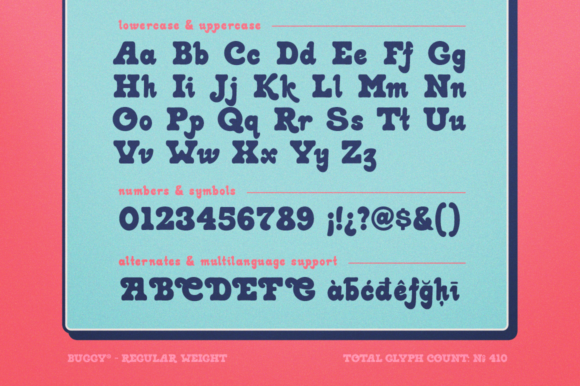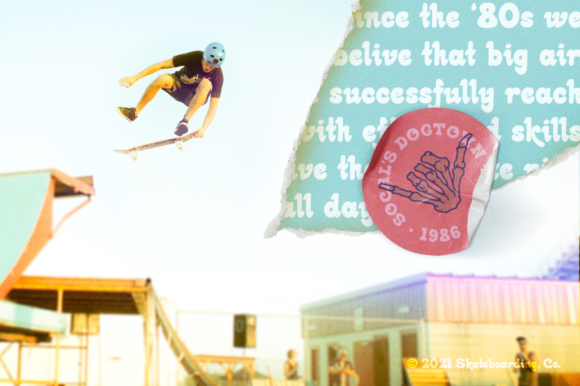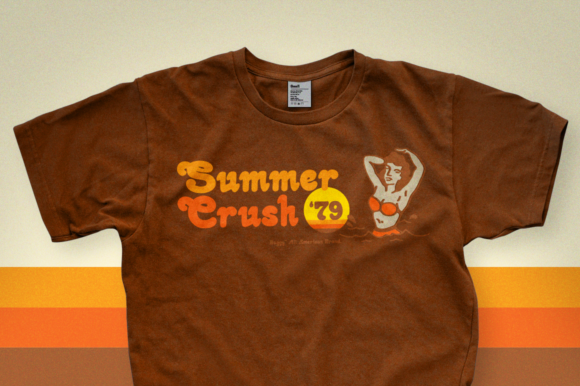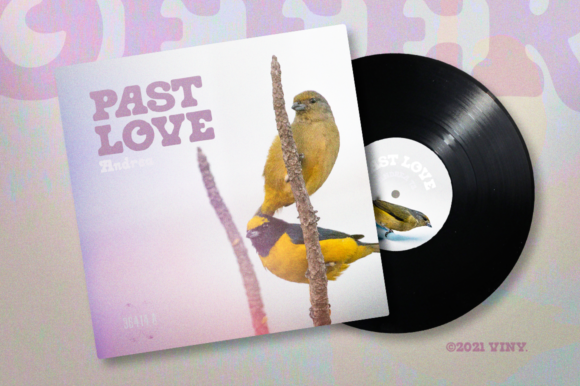
Introducing Buggy Font: The Bold and Retro-Styled Display Font You Need
In the world of design, fonts play a crucial role in conveying the message and aesthetic of a project. Whether you’re a digital designer, crafter, or presenter, finding the right font can make all the difference. That’s where Buggy Font comes in – a bold and retro-styled display font that’s perfect for adding a touch of trendiness to your work.
What is Buggy Font?
Buggy Font is a carefully crafted display font that’s designed to make a statement. With its bold and retro-inspired style, it’s perfect for projects that require a bit of flair. The font features a unique blend of classic and modern elements, making it versatile and suitable for a wide range of applications.
Key Features of Buggy Font
- Bold and Retro-Styled: Buggy Font boasts a bold and retro-styled design that’s sure to grab attention.
- Perfect for Display Purposes: With its large and clear letterforms, Buggy Font is ideal for display purposes, such as headings, titles, and captions.
- Trendiness: The font features a perfect amount of trendiness, making it suitable for projects that require a modern and stylish touch.
- Versatile: Buggy Font can be used for a wide range of applications, including crafting, digital designing, presentations, and greeting cards making.
Use Cases for Buggy Font
Buggy Font is perfect for designers and crafters who want to add a touch of personality to their work. Here are some use cases where Buggy Font shines:
- Crafting: Use Buggy Font to add a bold and retro-styled touch to your crafting projects, such as scrapbooking, card making, and DIY tutorials.
- Digital Designing: Buggy Font is perfect for digital designers who want to create stunning visual content, such as social media graphics, blog posts, and presentations.
- Presentations: Add a touch of trendiness to your presentations with Buggy Font, making them more engaging and memorable.
- Greeting Cards Making: Use Buggy Font to create unique and eye-catching greeting cards for special occasions.
Benefits of Using Buggy Font
Using Buggy Font can bring several benefits to your design projects:
- Stand Out: Buggy Font’s bold and retro-styled design helps your project stand out from the crowd.
- Easy to Read: The font’s clear and large letterforms make it easy to read, even at smaller sizes.
- High-Quality: Buggy Font is a high-quality font that’s designed to deliver exceptional results.